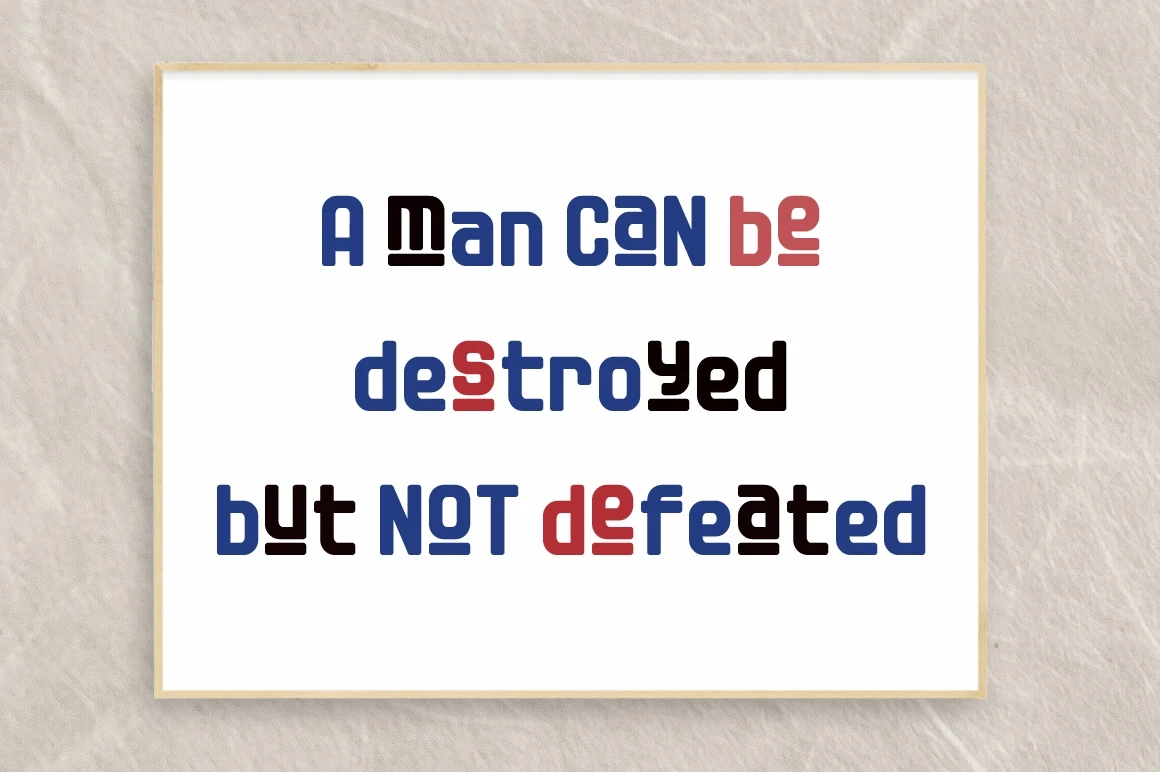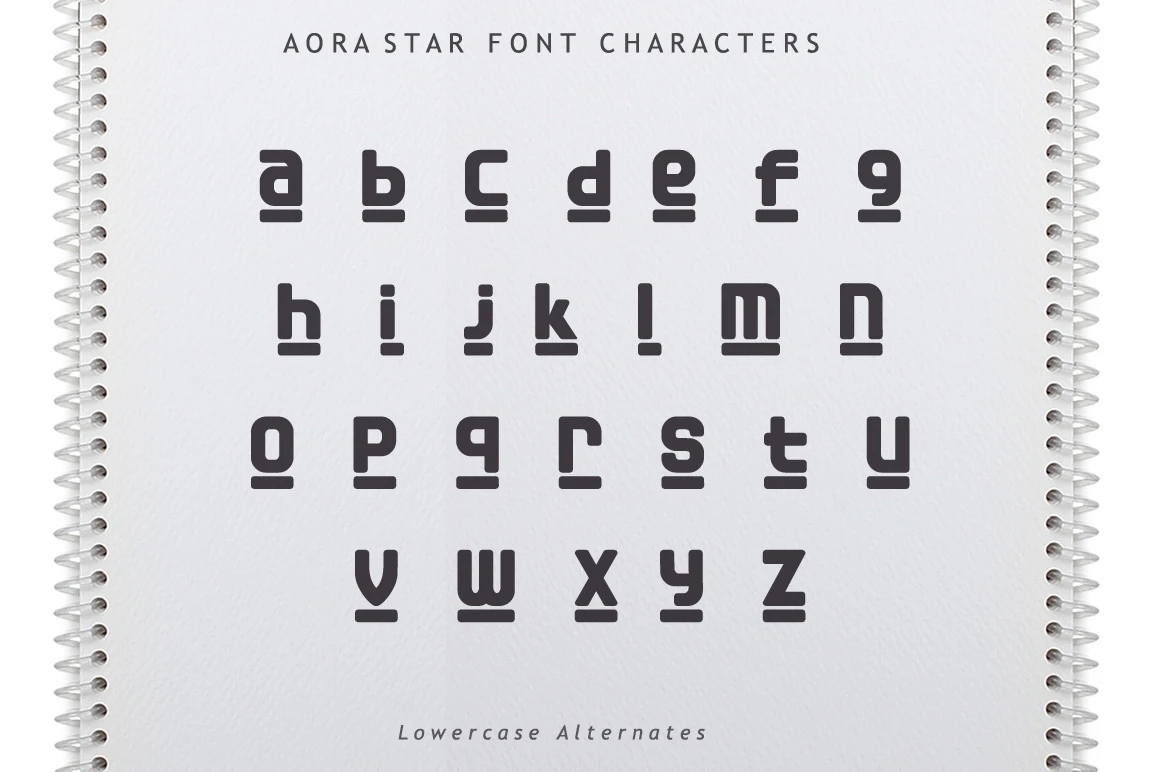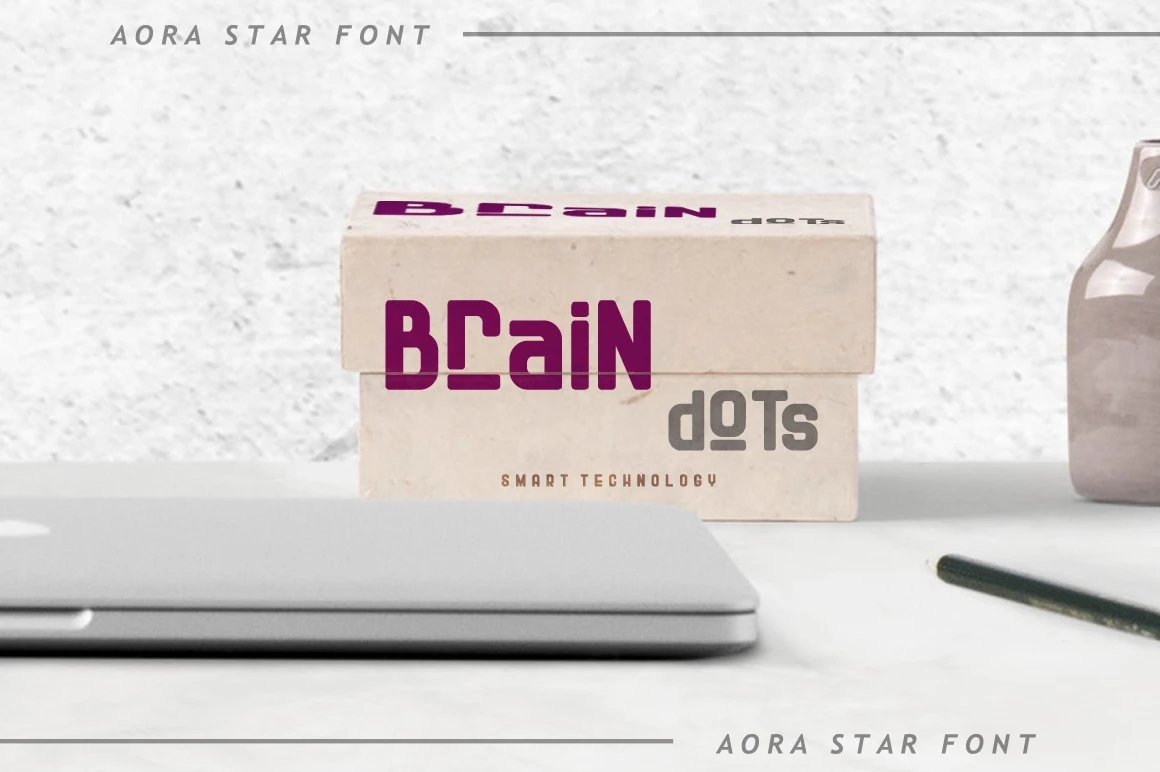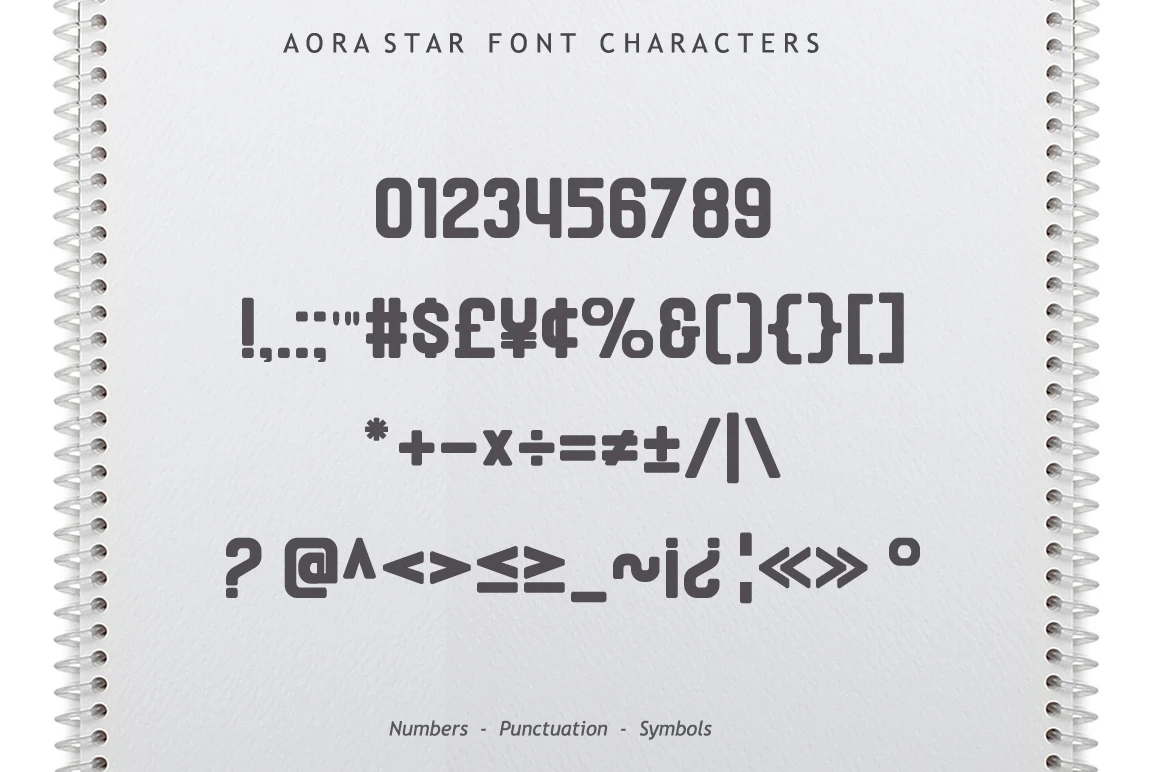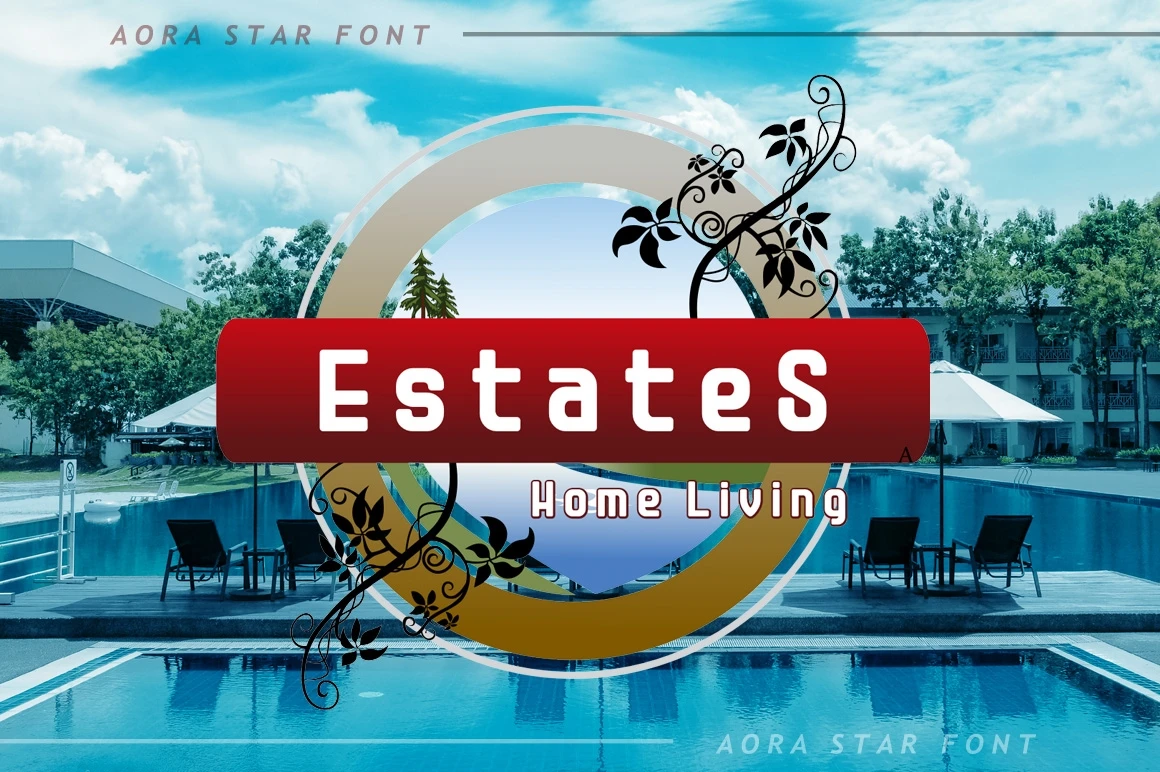
Aora star is a Modern sans font with smooth and soft curves.
Aora star is the best choice for logotypes, branding, product packaging, and many more.
Features :
- Uppercase A-Z
- Lowercase a-z
- Numbers 0-9
- Accents
- Punctuation
- Lowercase alternates
- Multilingual support